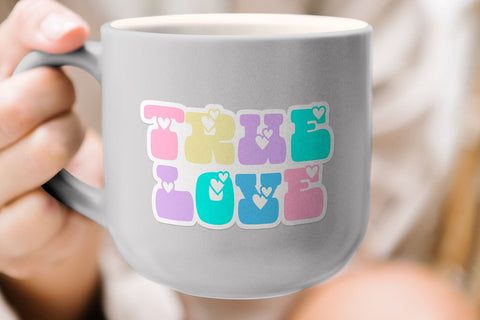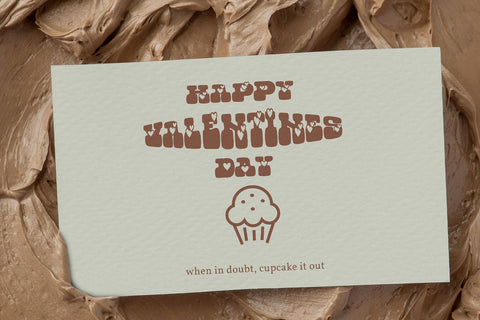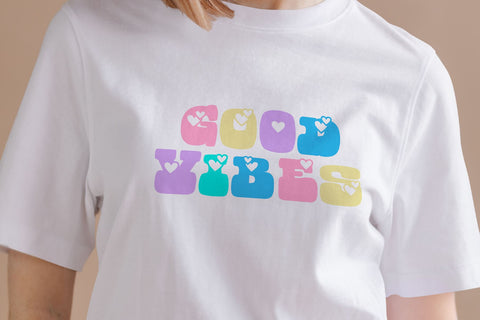
Love Brian - Love display font
Are you looking for a unique elegant font? You came to the right product.
Love Brian is an elegant hand lettering look attractive and natural.
Of course part of Lucky Brian Font!
Every single letters have been carefully crafted to make your text looks beautiful.
Every letter has a unique and beautiful touch, which will make your design come alive!